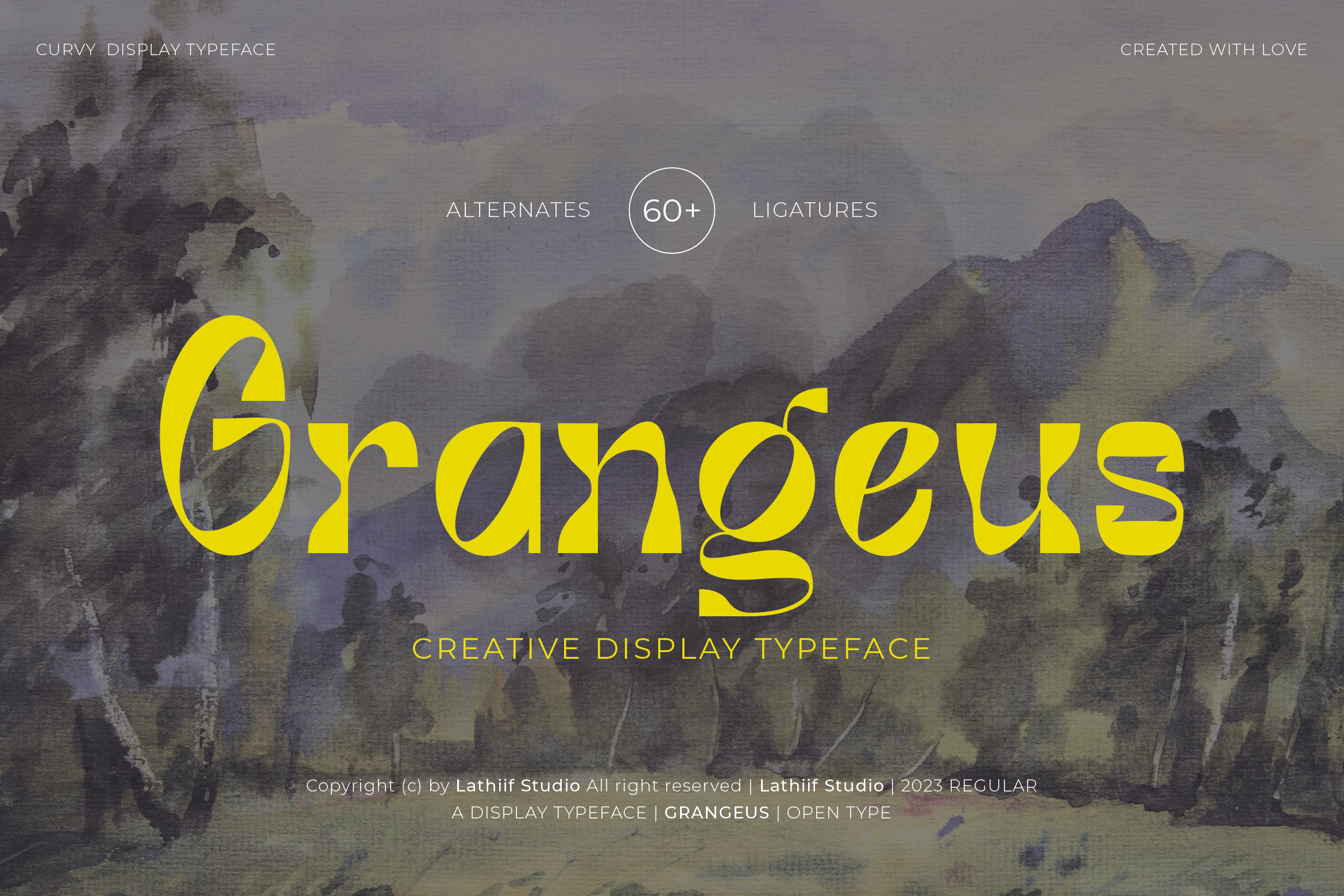
Grangeus - Creative Display Font
Grangeus - Creative Display Font a typeface that strikes the perfect balance between eye-catching design and flawless legibility.
- Tons of glyphs
- Alternates and Ligatures
- Punctional
- Fonts include Multilingual Support